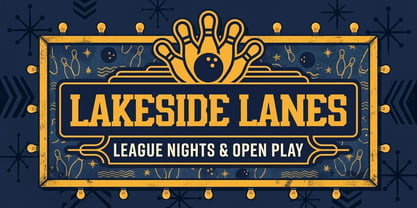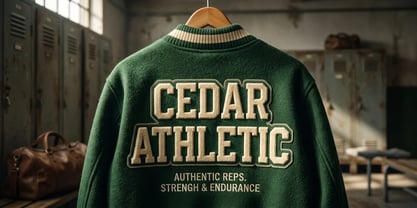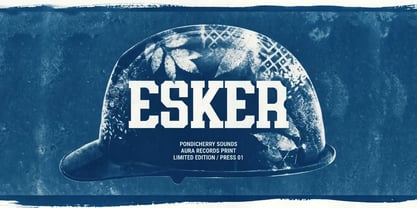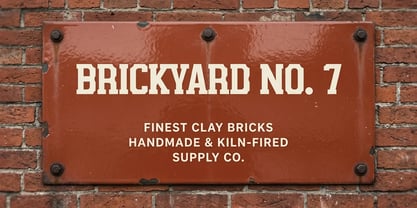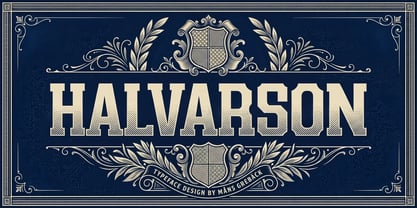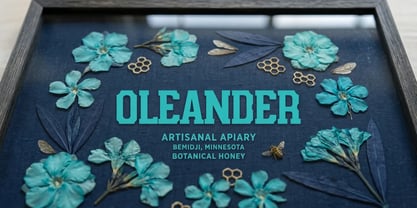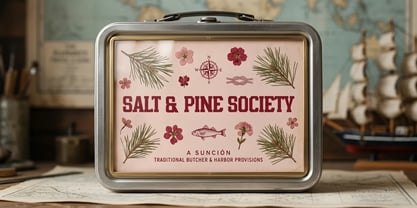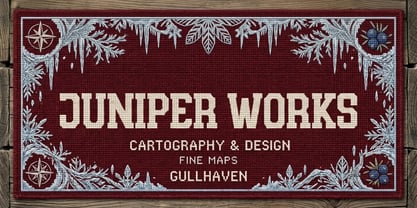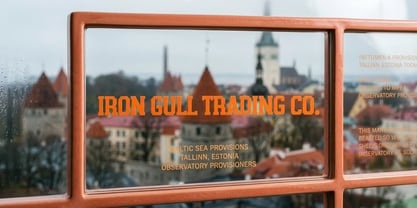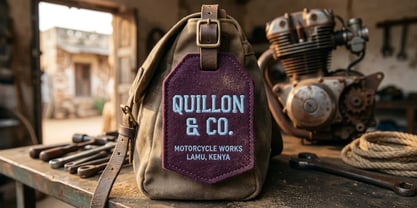
Halvarson
La familia tipográfica Halvarson fue diseñada por Måns Grebäck y publicada por Mans Greback. Halvarson contiene 4 estilos y opciones de paquete familiar. Más información sobre esta familia
Halvarson is a bold slab-serif display typeface drawn in the spirit of old college athletics.
The letters are heavy and upright, with thick square slabs anchoring every stem and a broad-shouldered build. It runs in capitals even where you would type lowercase, so a word locks together into one solid block.
You can picture it stitched across the chest of a team jacket or painted on the boards of a lakeside bowling alley.
The font is built with advanced functionality and guaranteed top-notch quality, containing stylistic and contextual alternates, ligatures and more automatic and manual features; all to give you full control and customizability.
It has extensive lingual support, covering all Latin-based languages, from North Europa to South Africa, from America to South-East Asia. It contains all characters and symbols you'll ever need, including all punctuation and numbers.